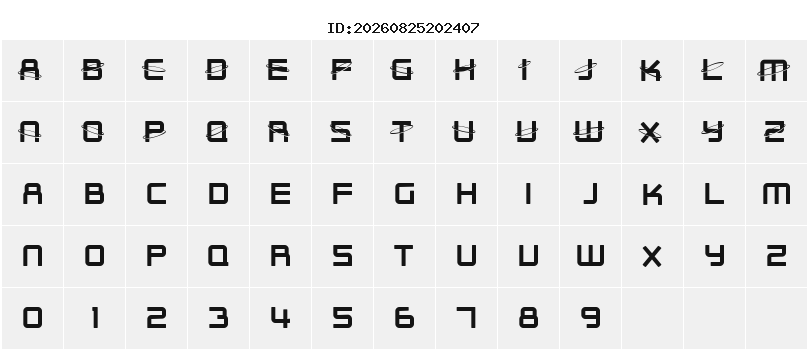
SF Outer Limits Upright Preview
• Font Name: SF Outer Limits Upright
• Full Font Name: SF Outer Limits Upright
About SF Outer Limits Upright.ttf
SF Outer Limits Upright.ttf is a modern, elegant sans-serif font designed for ultimate readability and visual harmony. Perfect for branding, headlines, web design, and print materials.